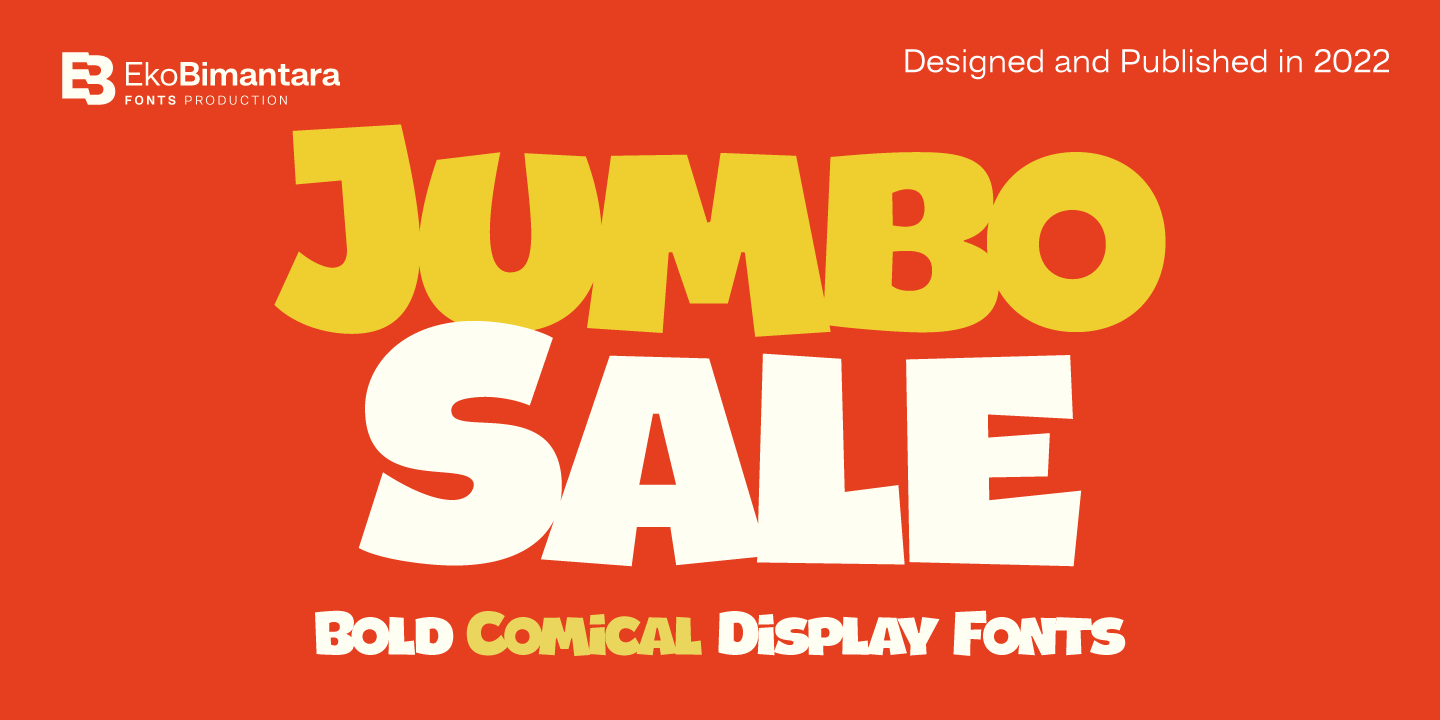
Jumbo Sale Font is perfect for promotional advertising campaigns, retail sale banners, clearance event signage, discount store materials, bargain price tags, seasonal sale posters, and eye-catching marketing graphics. This bold display typeface delivers maximum impact for commercial promotions and attention-grabbing retail communications.
What makes Jumbo Sale Font exciting is its oversized, commanding presence that instantly draws attention and communicates urgency. The thick, block-style letterforms create powerful visual impact that cuts through advertising clutter, making it ideal for promotions that need to grab shoppers' attention immediately and effectively.
Jumbo Sale Font family includes multiple variations optimized for different promotional needs, from standard bold to ultra-condensed styles for space-constrained applications. Each variation maintains maximum readability while delivering the strong visual punch essential for successful retail advertising and promotional materials.
The commercial effectiveness and attention-grabbing power of Jumbo Sale Font Free Download make it indispensable for retail marketing and promotional design projects. Whether creating storefront signage, digital advertising banners, or print promotional materials, this versatile display font ensures your sales messages command attention and drive customer action. Its bold character and promotional authenticity guarantee maximum visibility in competitive retail environments.